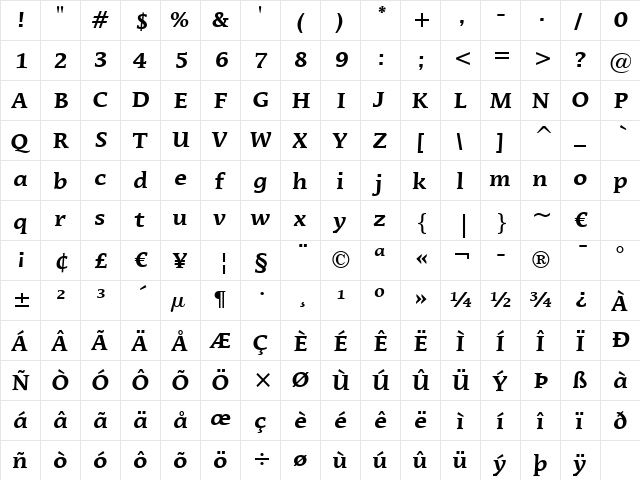
Mirarae BT Bold
Design Context for Mirarae BT Typeface
Mirarae BT is a composed and adaptable typeface that performs quietly and consistently across a wide range of design contexts. Its bold stroke weight gives it real presence on the page.